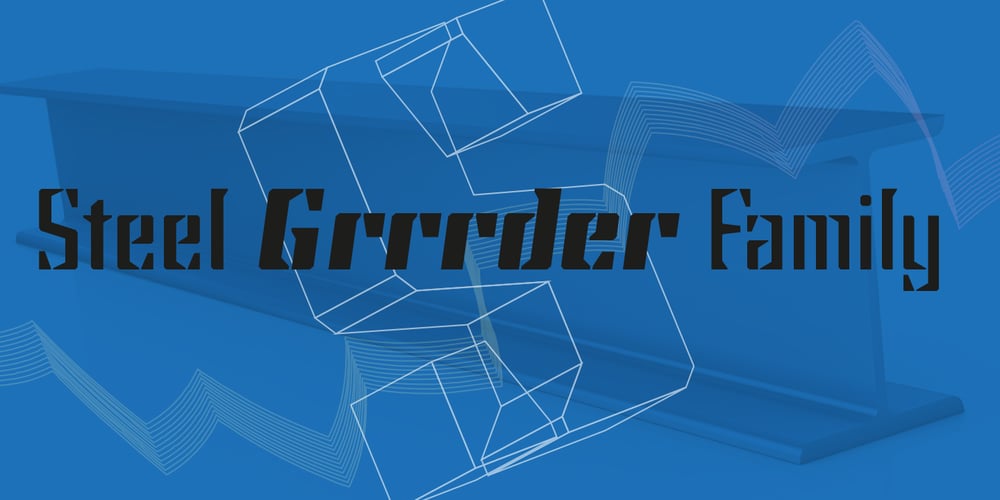
Steel Grrrder Font Family was designed by Michael Gills and published by ULGA Type. Steel Grrrder contains 12 styles and family package options. Steel Grrrder is a robust, industrial-style stencil typeface family consisting of six weights, from light to black, with corresponding italics.Suitable for all kinds of display purposes including posters, film titles, book covers, magazines, advertising, logos, packaging, signage and games design, Steel Grrrder is especially useful where the message needs some serious geometric bite behind it. Steel Grrrder is best categorised as a constructivist sans family. The character shapes are sharp, angular and slightly condensed – it’s a rigid, no-frills, no-curves, mega-metallic design. Legible? Not really. Readable? I think not. In your faceable? Absolutely!This is a tough display typeface, designed to work in the most demanding typographic situations. It won’t buckle under pressure or wilt when the heat’s turned up. Forged from carbon steel and wrapped in a layer of Graphene, Steel Grrrder is unashamedly rugged, a rock-hard pound-for-pound boxer specialising in thumping knockouts. The Steel Grrrrder extended family also includes a six-weight joining script and two display fonts, Groove & Nutjob – all designed to work with each other.